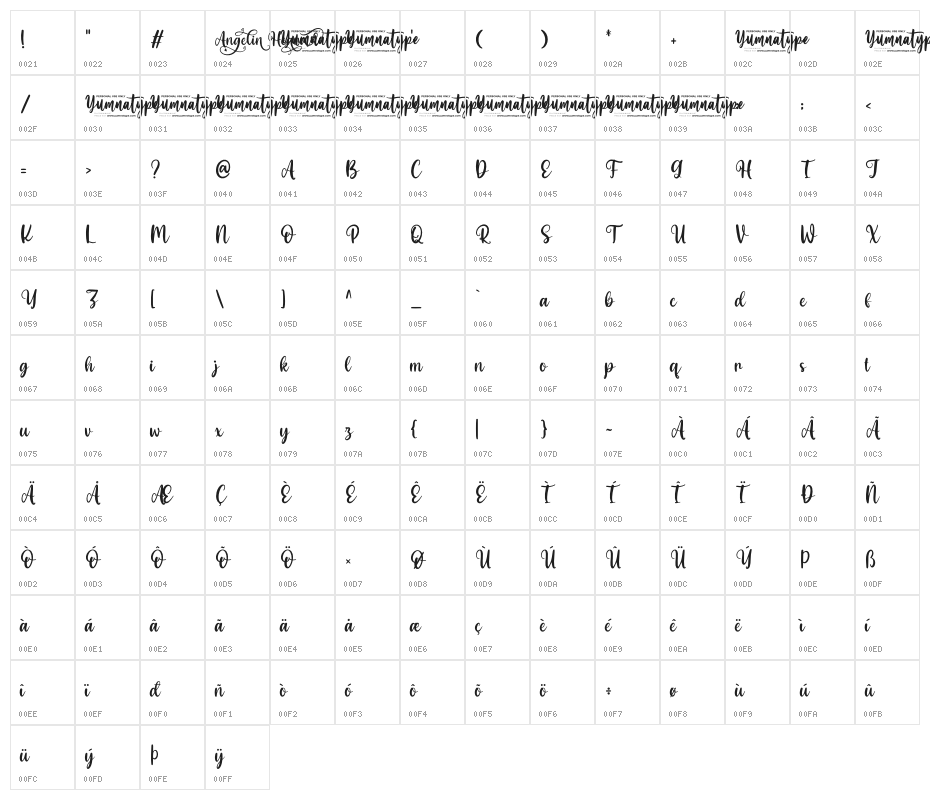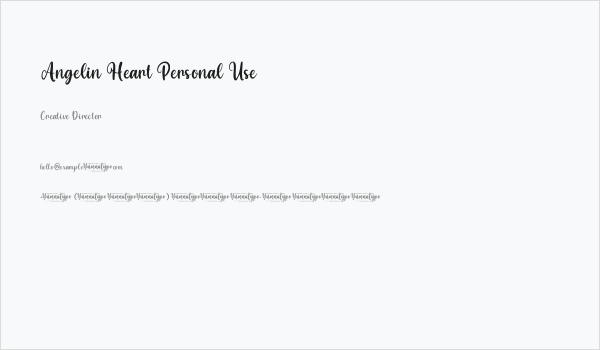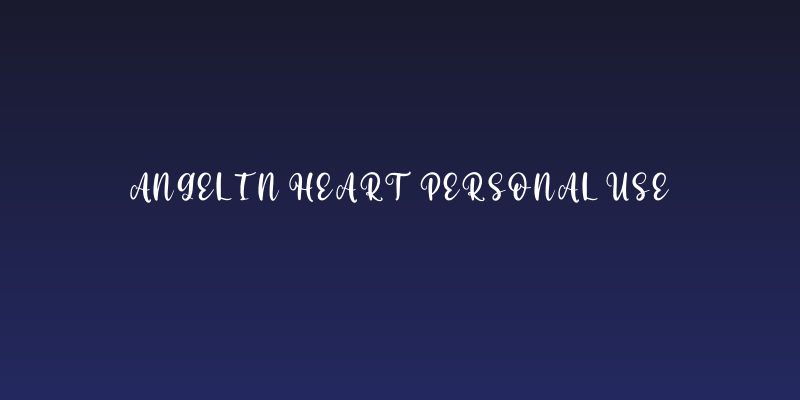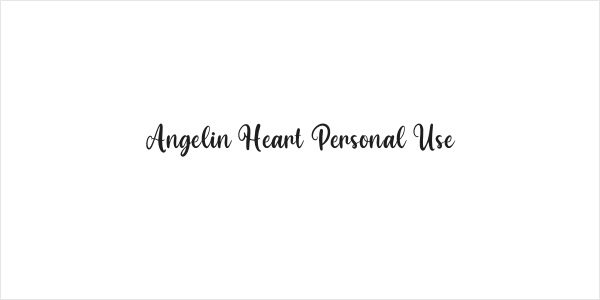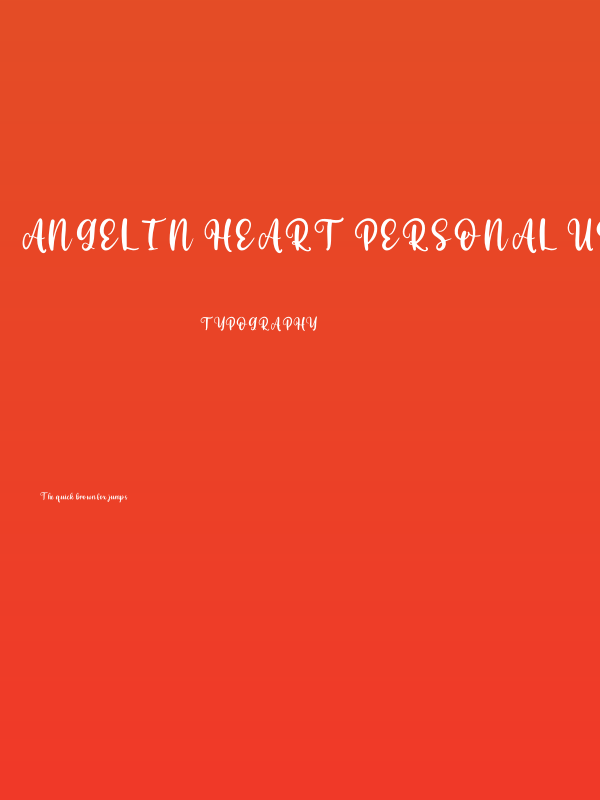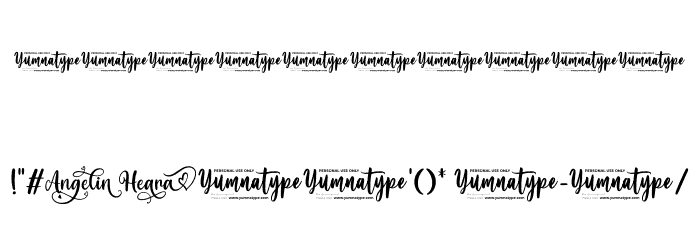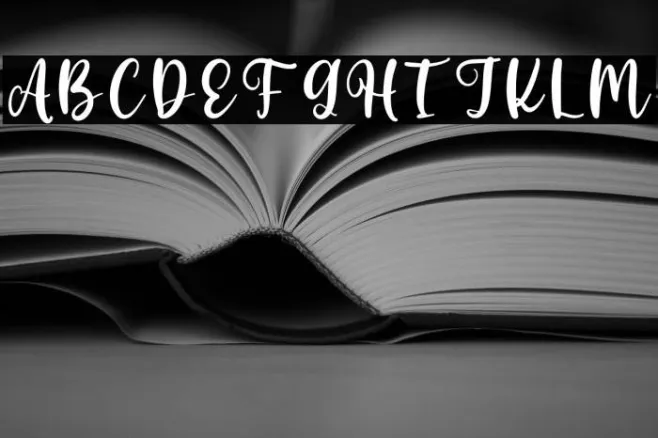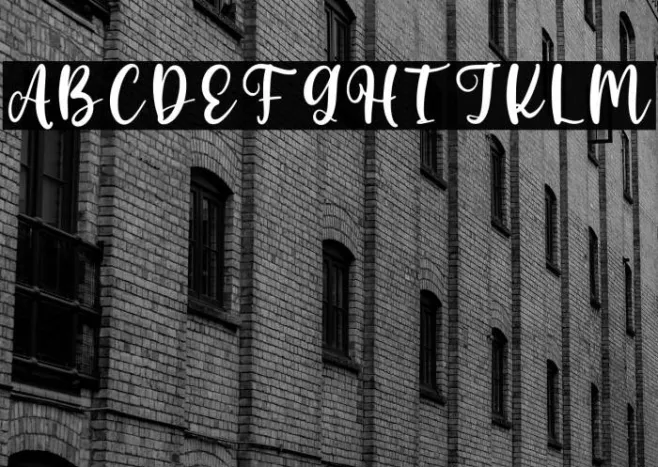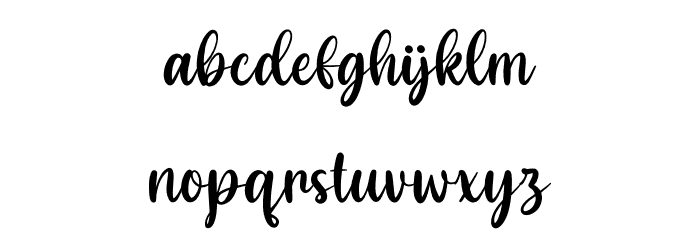
Angelin Heart Personal Use Font
Angelin Heart Personal Use Description
This font features a flowing, cursive style with elegant curves and a handwritten appearance. The uppercase letters are bold and expressive, with distinctive loops and swirls that add a touch of sophistication. The lowercase letters maintain a consistent flow, enhancing readability while retaining a stylish flair. The numerals and special characters are crafted to match the overall aesthetic, making them suitable for decorative purposes. This font exudes a sense of charm and personality, making it ideal for projects that require a personal touch.